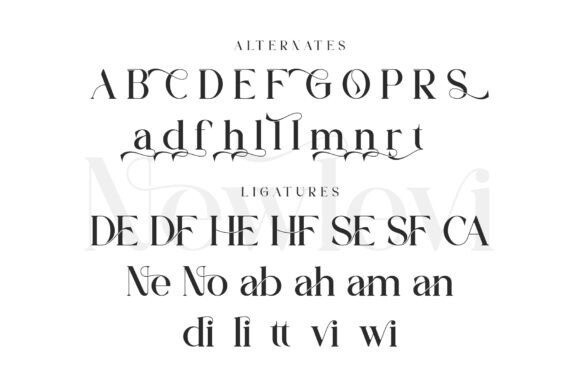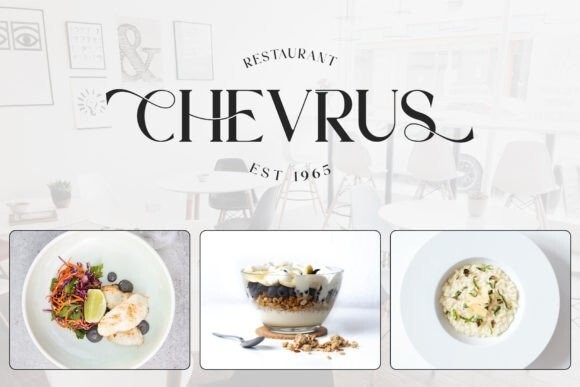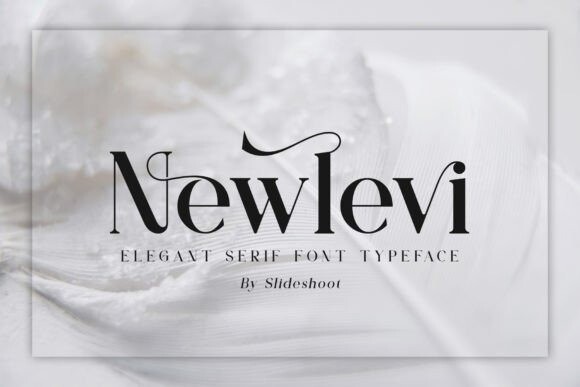
Newlevi Font
Newlevi Font is a balanced, smooth, elegant, and stylish serif font. He has a beautiful character. It fits perfectly with invitation card designs, company logos, movie titles, movie names, business cards, book titles, brand names, and various other designs. Newlevi Serif is a subtle serif font that exudes sophistication and elegance. Its stylish alternations and ligatures make this font the perfect partner for any project.